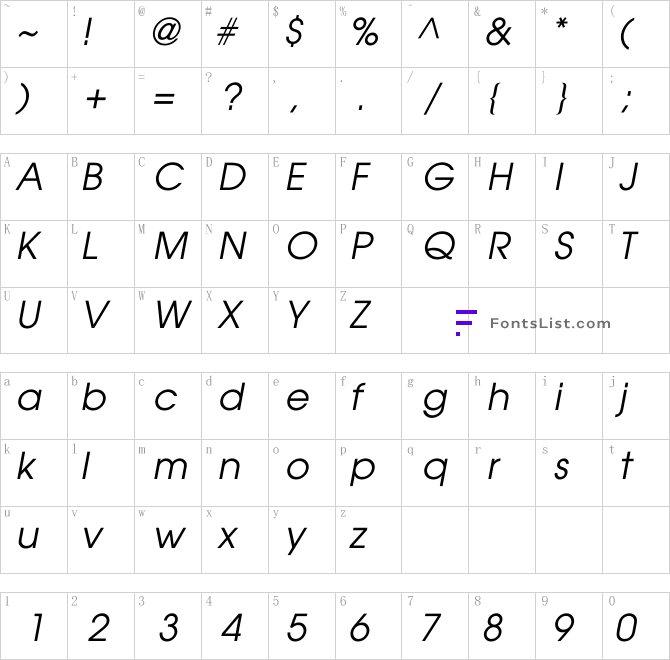
AvantGarde-BookOblique.ttf is a very beautiful artistic font, AvantGarde-BookOblique.ttf is widely used in the design and printing of various books and pictures,AvantGarde-BookOblique.ttf has a strong visual impact,AvantGarde-BookOblique.ttf is a commonly used font in newspapers, magazines and books, and is used in posters, e-commerce Poster design, store design, logo design, font design and other fields.AvantGarde-BookOblique.